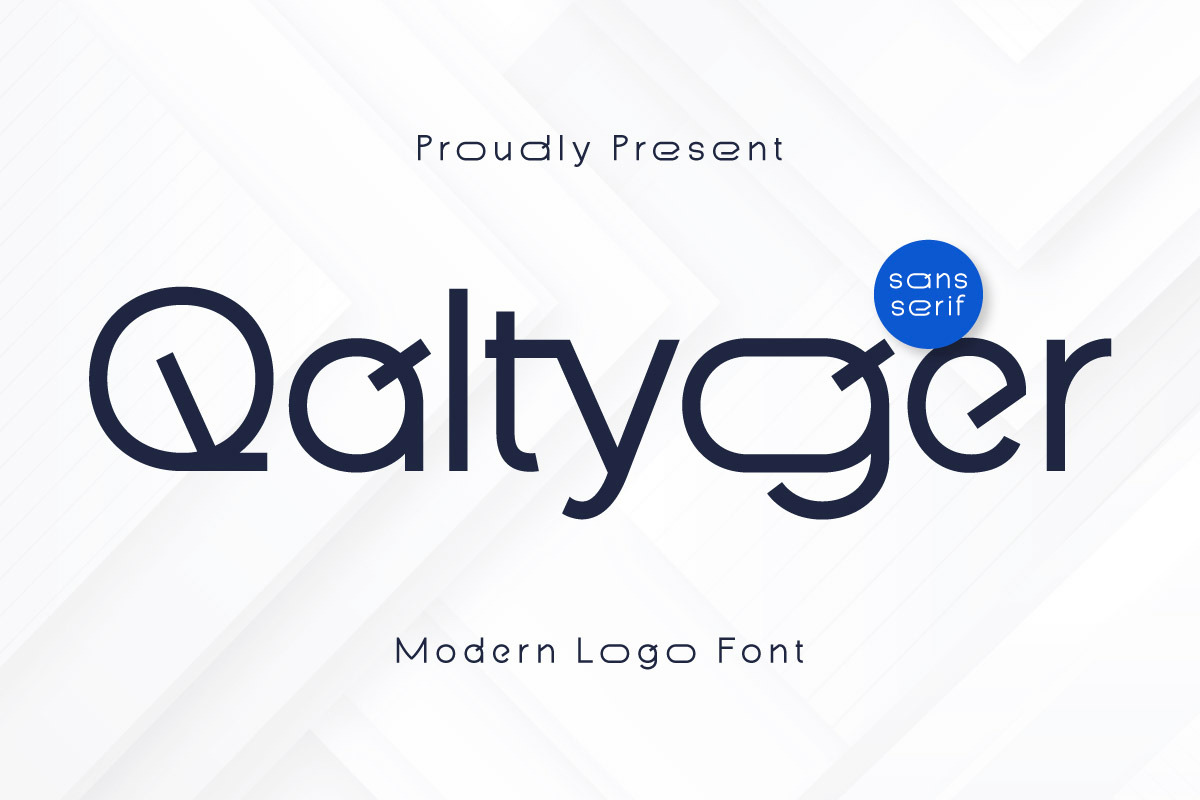
Qaltyger - Modern Logo Font
Qaltyger - Modern Logo Font is a sleek and stylish typeface designed specifically for modern logo and branding designs. With its clean lines and professional look, Qaltyger adds a touch of elegance and contemporary style to your projects. Ideal for luxury brands, corporate identities, and minimalist designs, this font ensures your work stands out with sophistication.
Enhance your branding projects with Qaltyger's sleek style and leave a lasting impression.